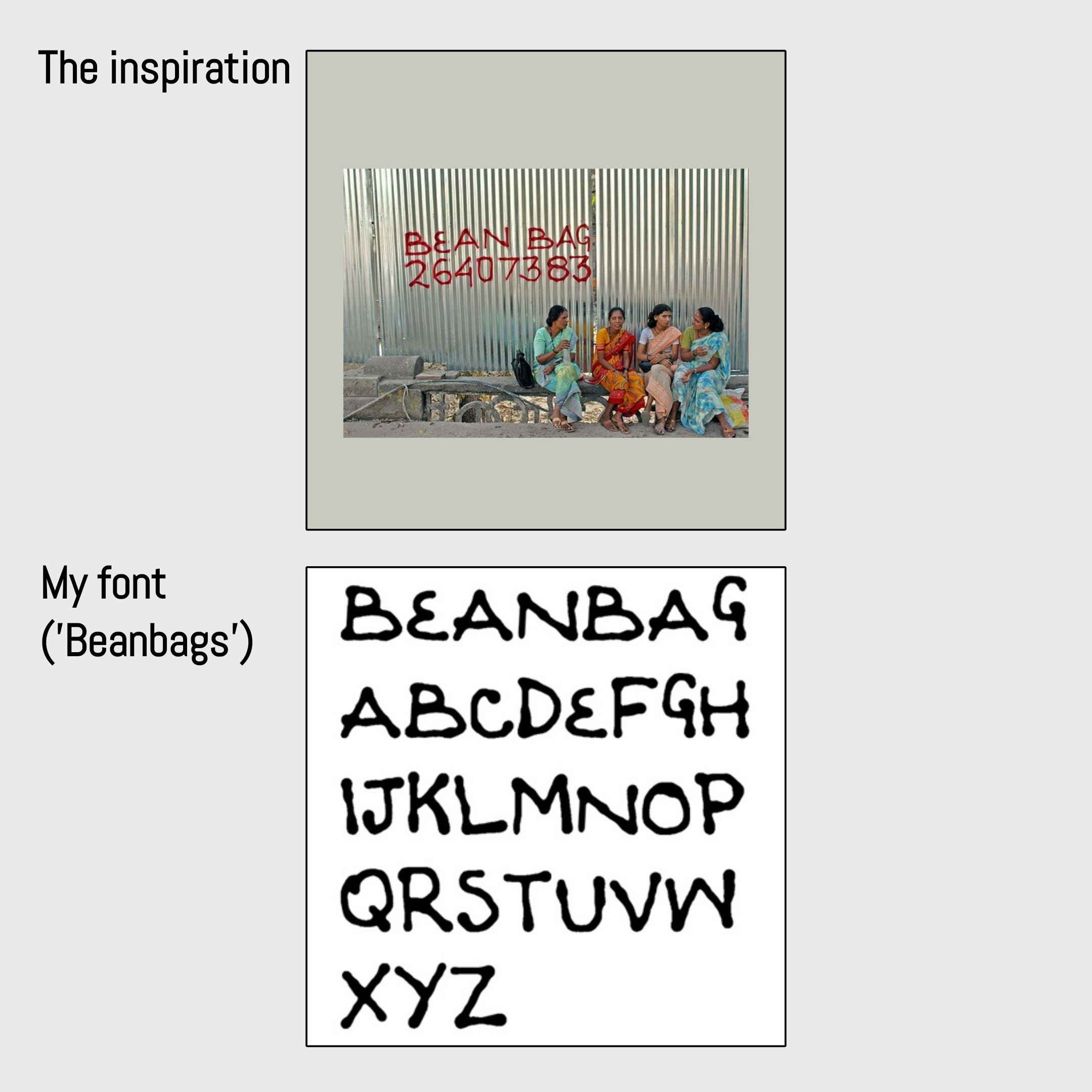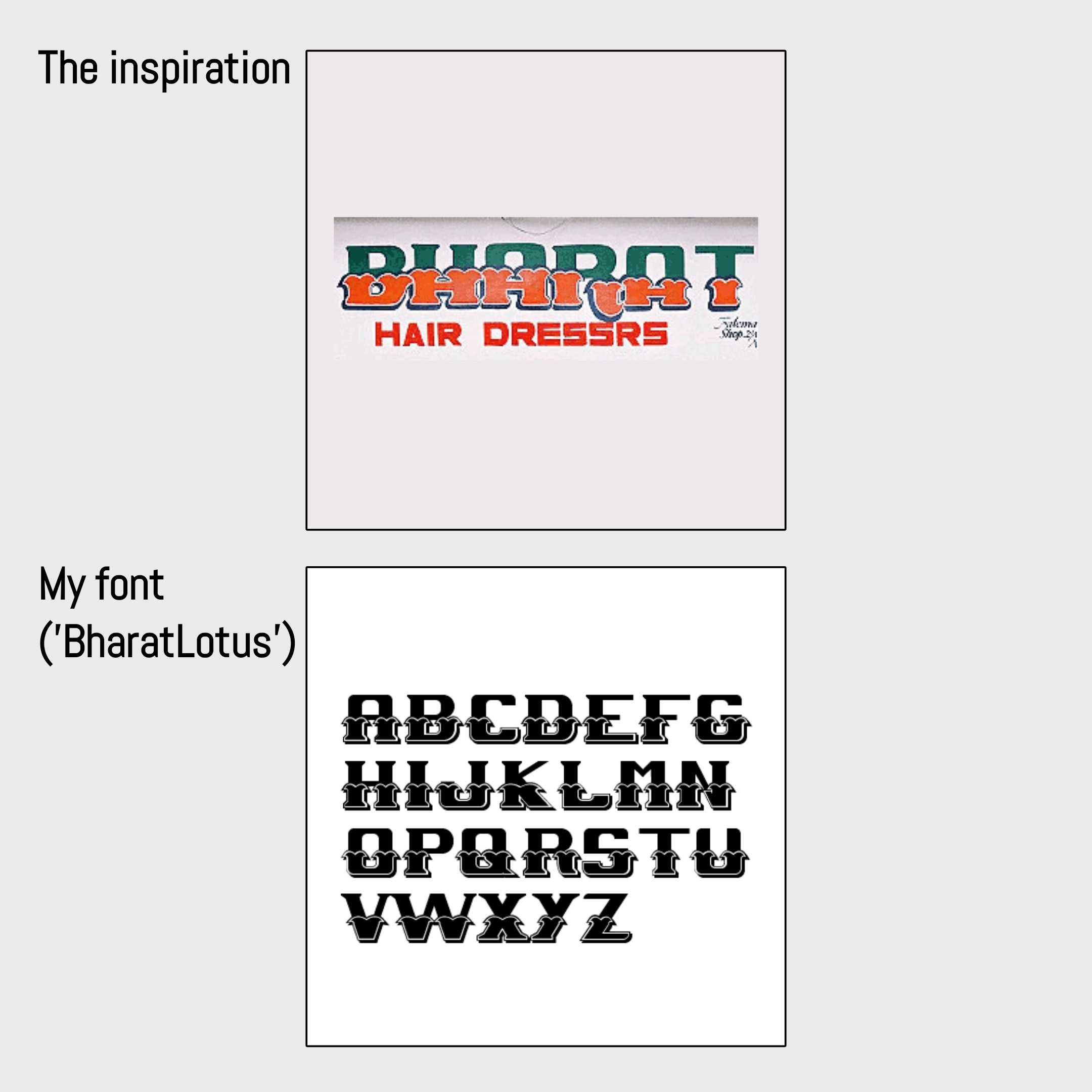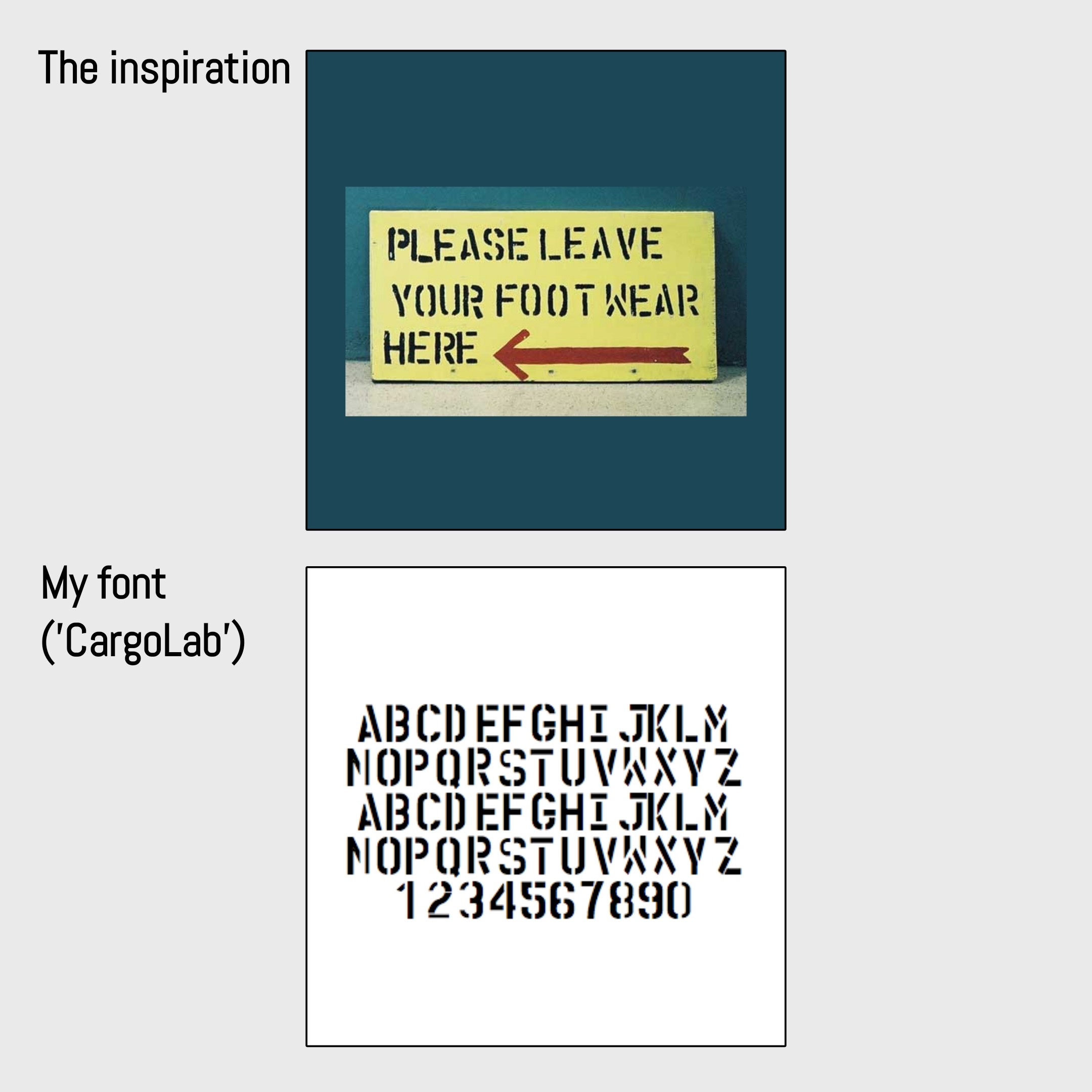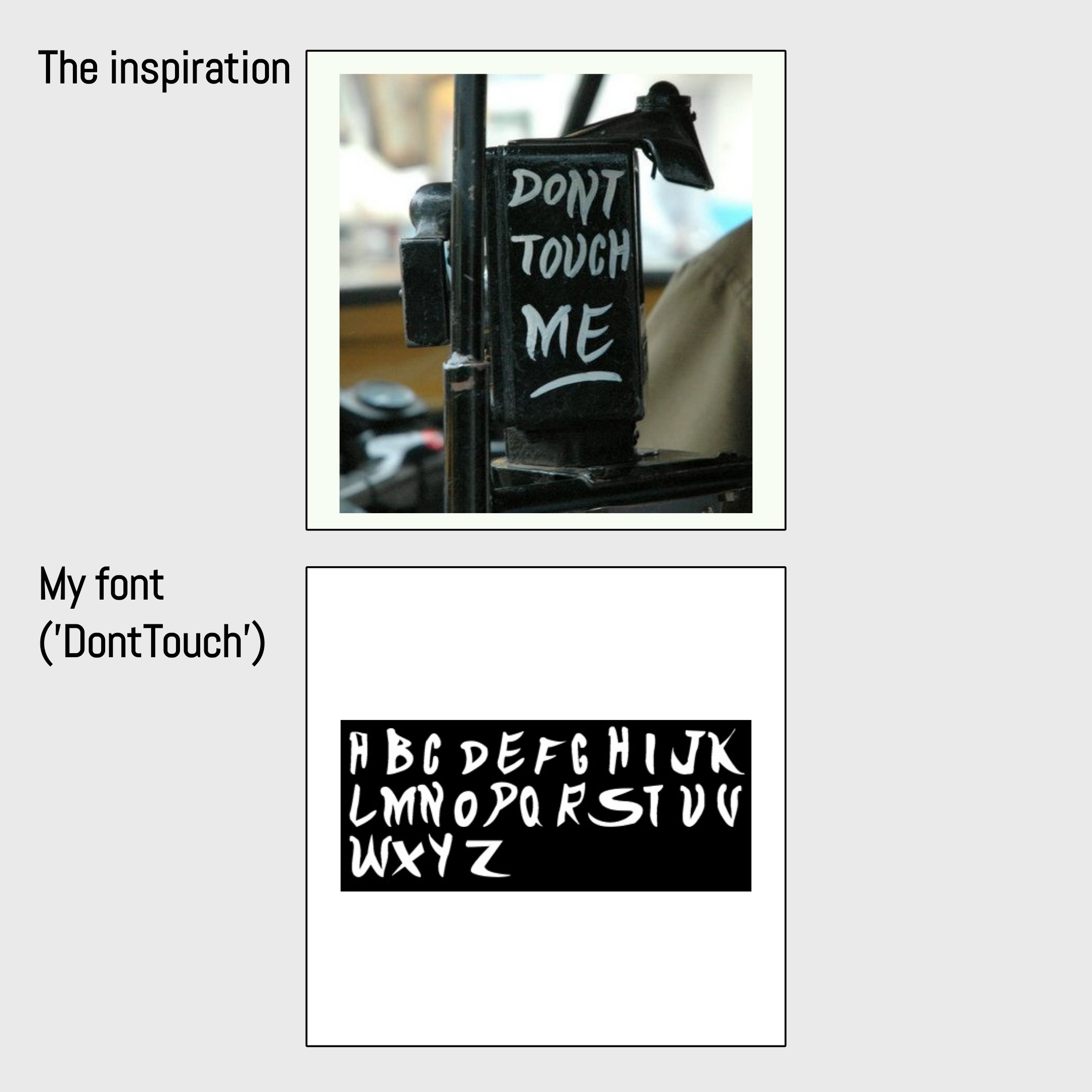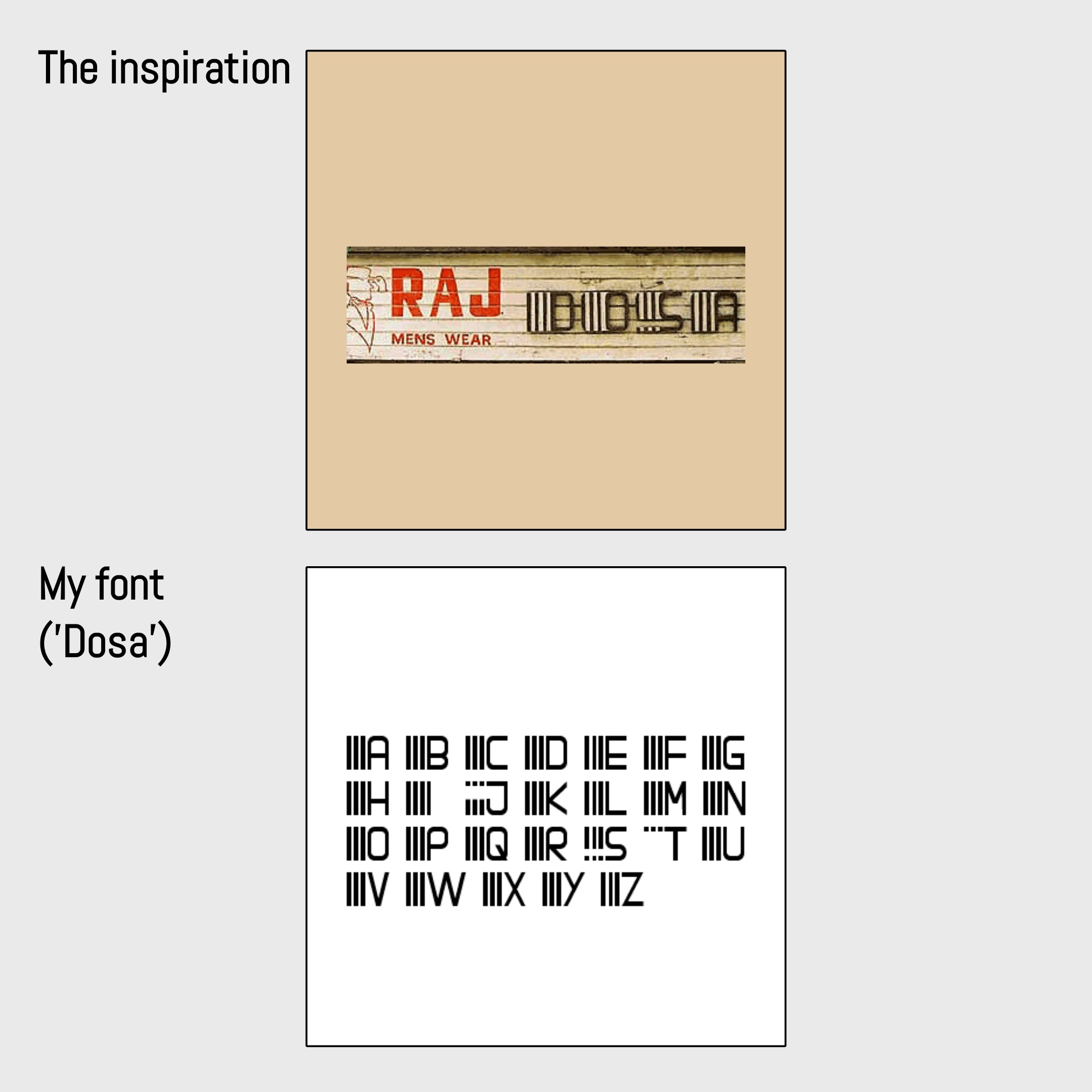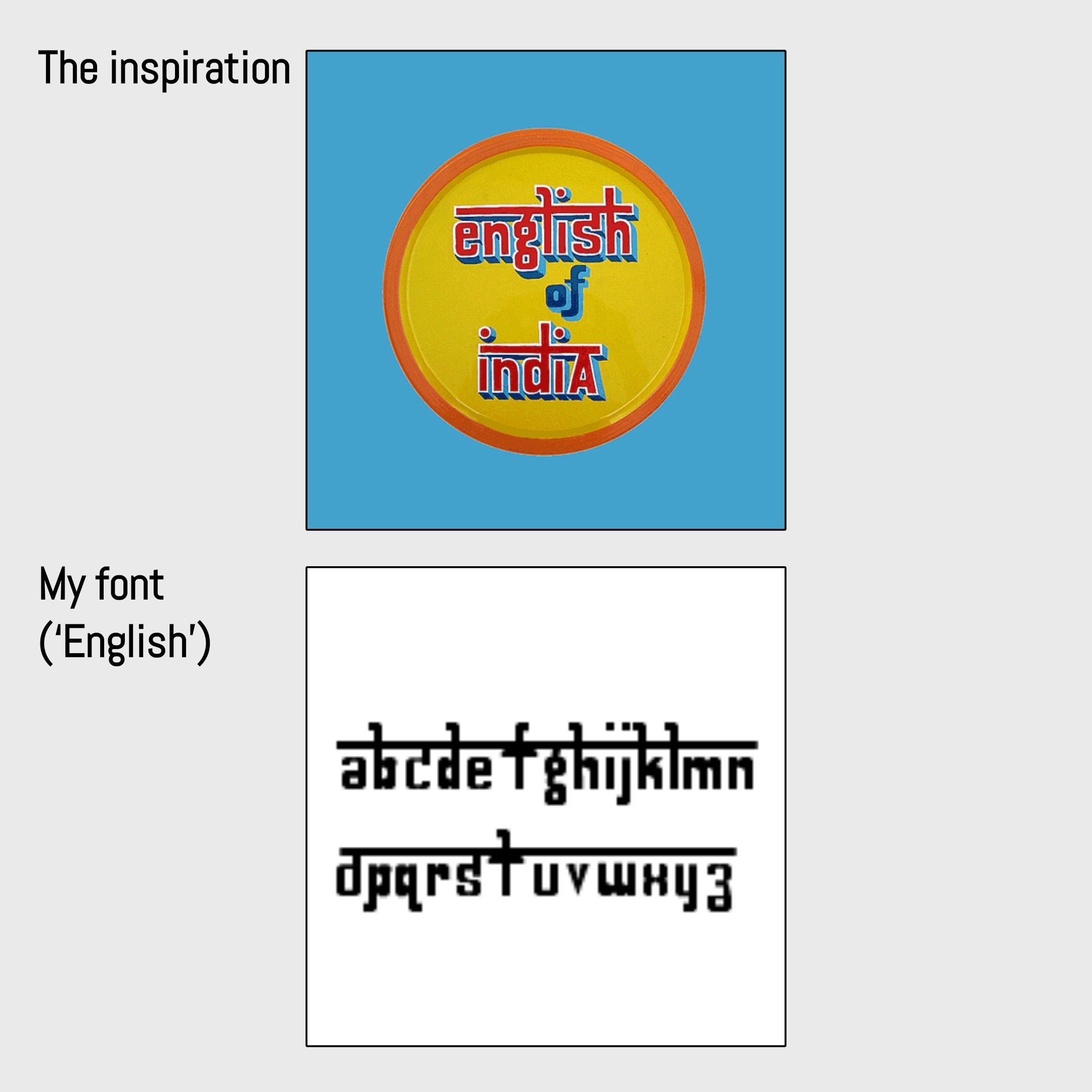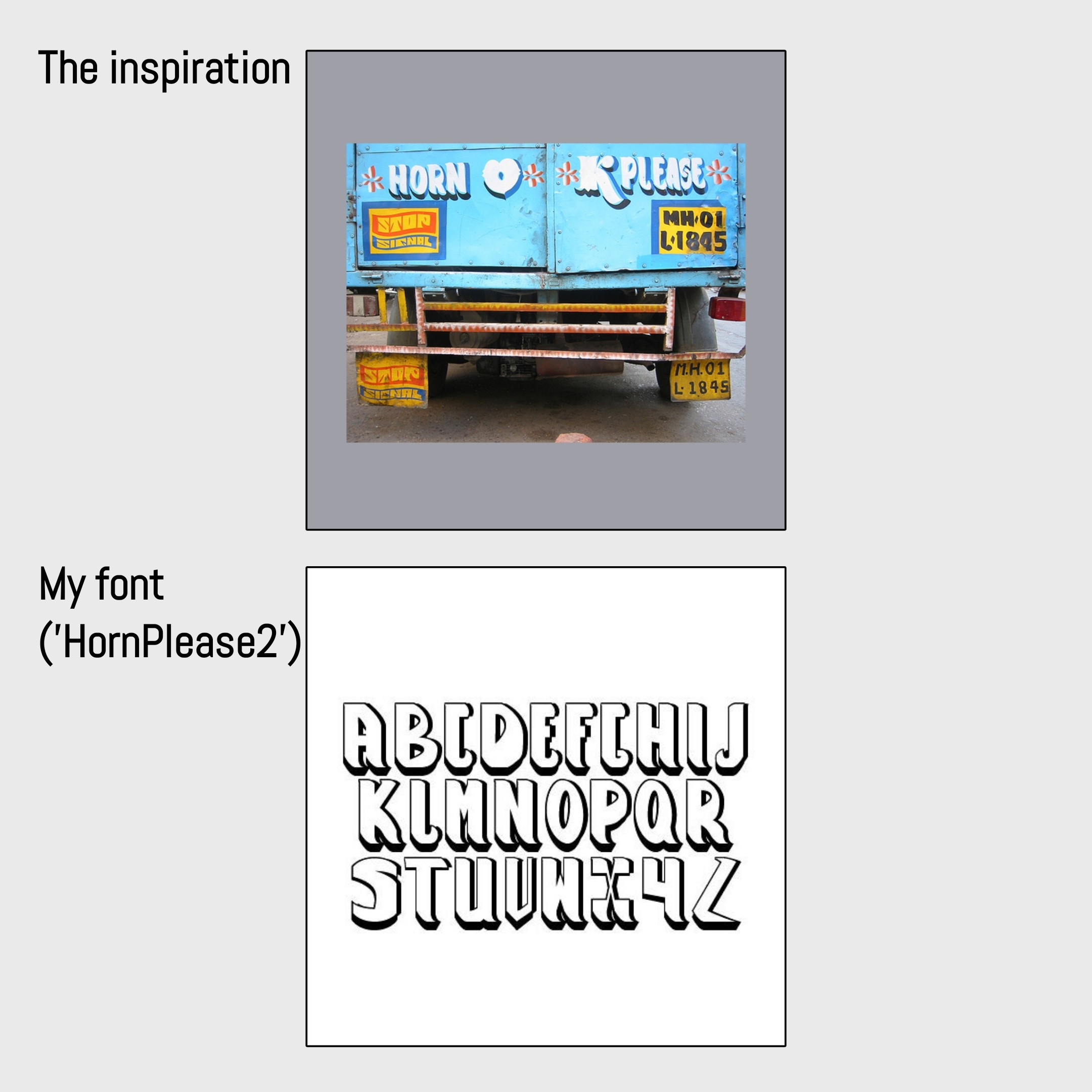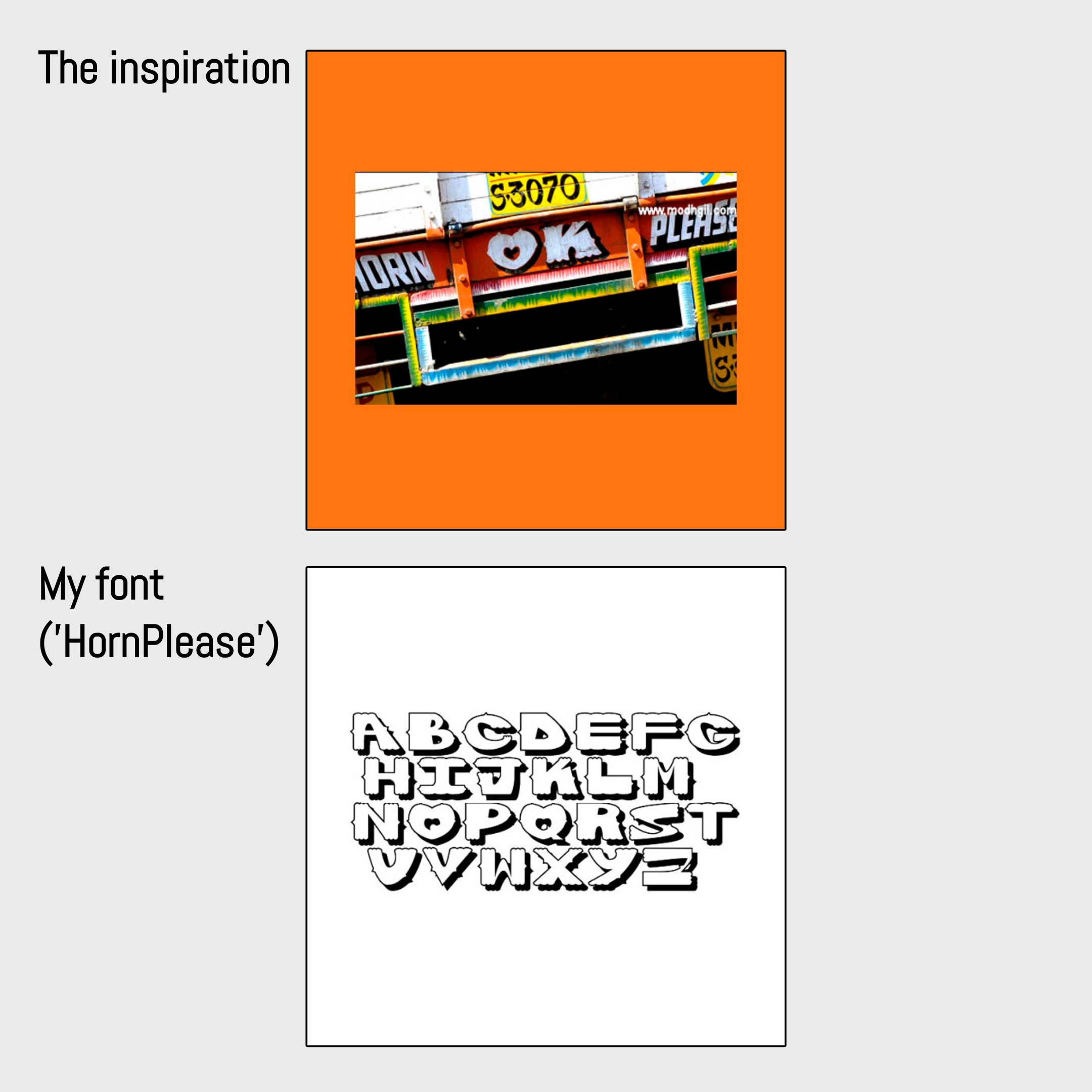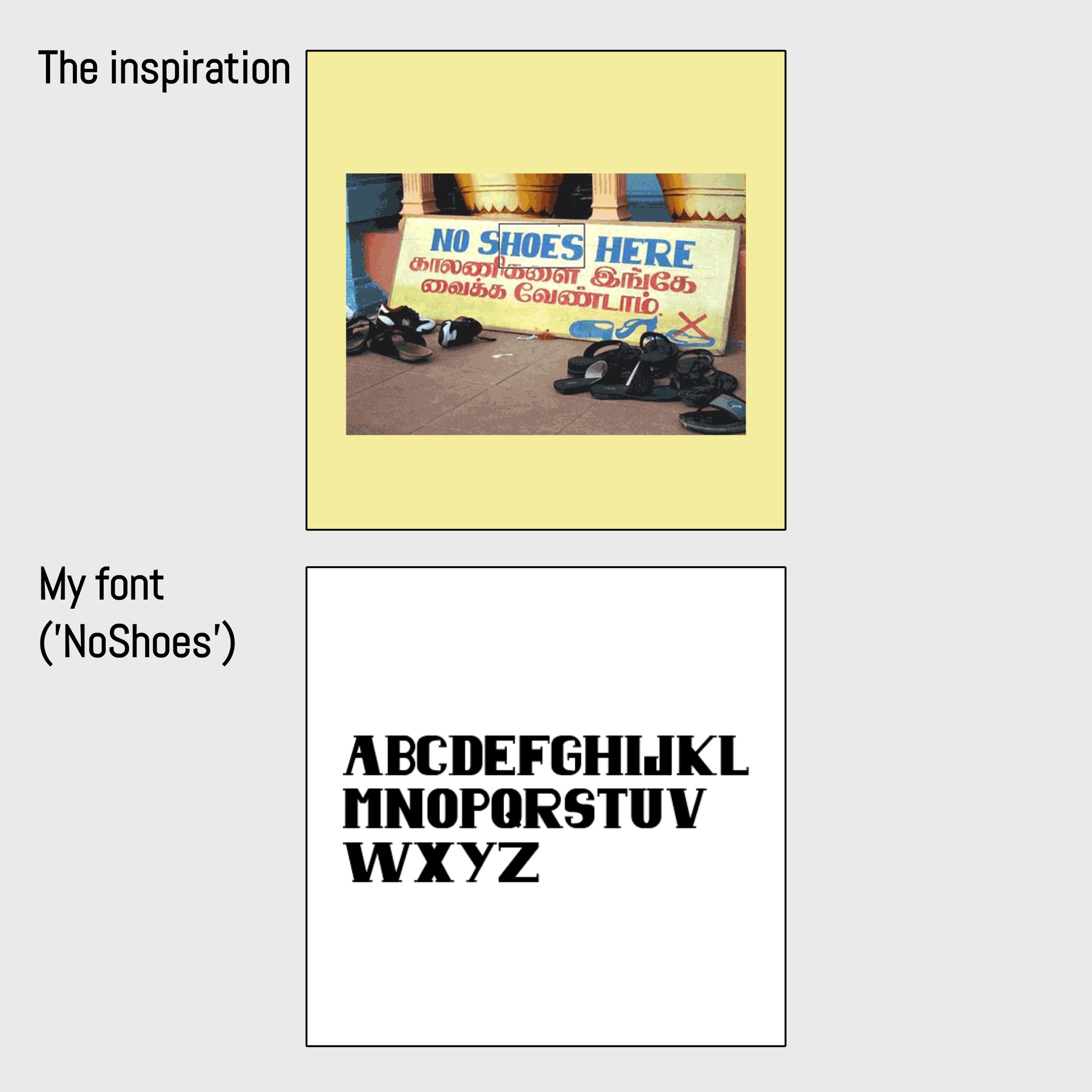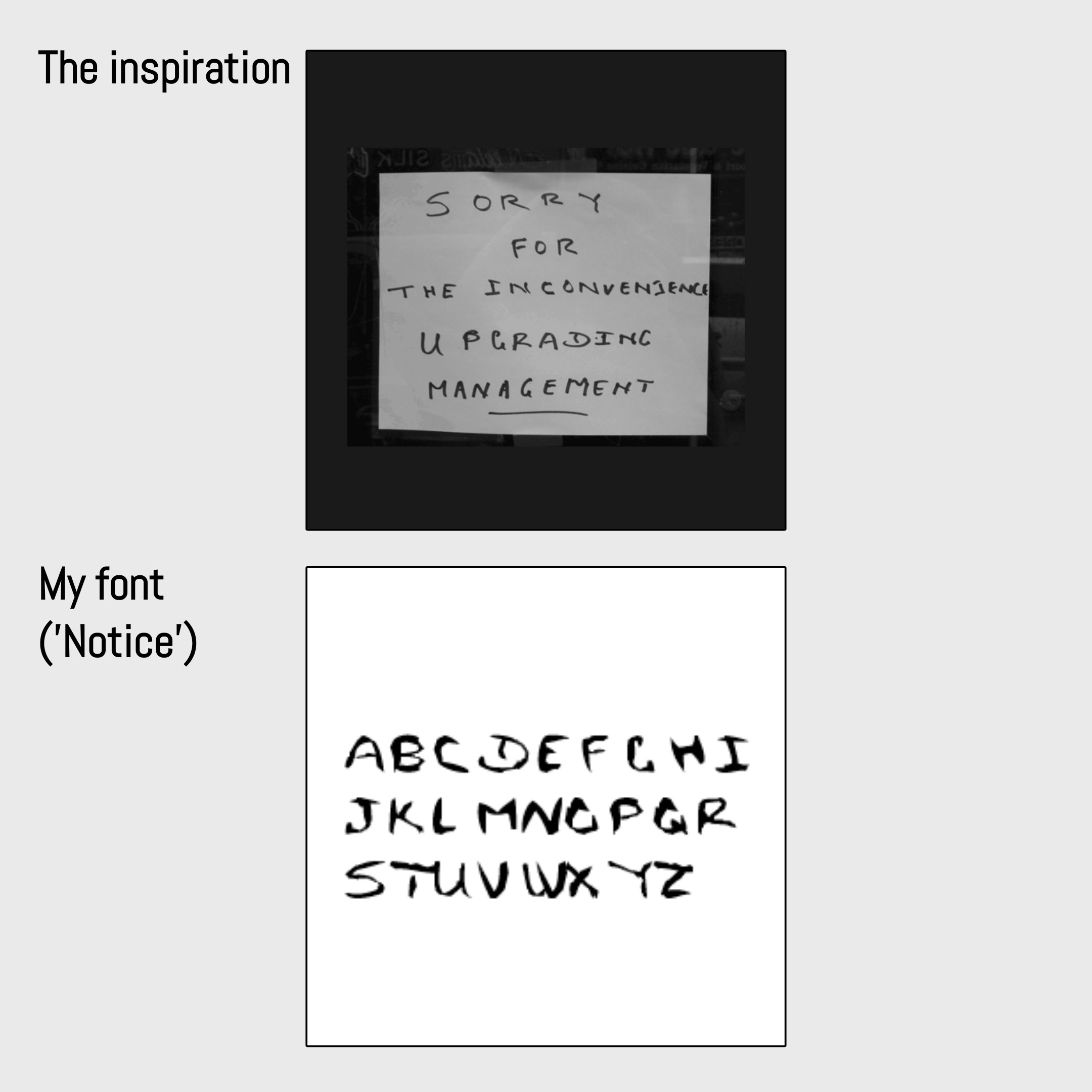
I love (relevantly used) fonts — their geometry, their art, their family rules. At one point I started collecting photographs of India's fast-disappearing hand-painted typography — the "Horn OK Please" behind trucks, the "STD ISD" on phone booths — and turning them into installable typefaces. The challenge: each photo gave me only a few letters. The rest had to be interpolated from the rules hidden in what was there.
The Ray Roman story
A Satyajit Ray desk calendar and film clapperboard — the kind of collectable that holds the memory of his hand-lettering, which inspired the Ray Roman font project
The Clarion office (Bates at the time) had framed along its staircase walls an alphabet set hand-drawn by Satyajit Ray, from when he used to work there. My mentor Ram Ray suggested I turn it into a font — a secret project between us. After I finished it and he approved it, and we had christened it RR (Ray Roman), the news came that someone else had already done it. We were devastated. I decided not to share RR publicly — I keep it under his care only. It is the font that got away.
Type design is where the rules are strictest. A logotype is a handful of letters that have to hold together under any amount of scrutiny, the same problem as a typeface but smaller and less forgiving, which is why the two disciplines keep teaching each other. The same rules sit underneath brand identity design, where the typeface is rarely the loudest decision on a page and almost always one of the most consequential. That thinking carries through logo design and the rest of the design work too.
Bharat Lotus font — inspiration photo of painted shop sign and full alphabet specimen A–Z in heavy decorative letterforms with lotus-petal serifs
Bharat Lotus
Hand-painted signage — "Bharat Hair Dressers", Kolkata
English font — inspiration and full alphabet specimen
English
Painted shop-front lettering
Service font — inspiration and full alphabet specimen
Service
Service board typography
Beanbags font — inspiration and full alphabet specimen
Beanbags
Informal hand-lettering
Thane font — inspiration and full alphabet specimen
Thane
Municipal painted signage
HornPlease font — inspiration photo of truck tailgate "Horn OK Please" lettering and full alphabet specimen in rounded chunky letterforms with inline strokes
HornPlease
"Horn OK Please" truck-back lettering
HornPlease2 font — variant on truck-back lettering, inspiration and full alphabet specimen
HornPlease2
Variant on truck lettering
DontTouch font — inspiration and full alphabet specimen
DontTouch
Prohibition signage
Travels font — inspiration photo of man holding hand-painted "TRAVELS" signboard in red, yellow and white; full alphabet specimen in matching decorative caps
Travels
Travel agency painted boards
Notice font — inspiration and full alphabet specimen
Notice
Notice-board lettering
StopSignal font — inspiration and full alphabet specimen
StopSignal
Traffic warning signs
CargoLab font — inspiration and full alphabet specimen
CargoLab
Freight & cargo stencilling
PCO font — inspiration and full alphabet specimen
PCO
"PCO STD ISD" phone booth lettering
OBricks font — inspiration and full alphabet specimen
OBricks
Construction site painted type
RedReverse font — inspiration and full alphabet specimen
RedReverse
Reverse-contrast painted sign
TrafficPolice font — inspiration and full alphabet specimen
TrafficPolice
Traffic authority lettering
SoundHorn font — inspiration and full alphabet specimen
SoundHorn
"Sound Horn" road marking lettering
STD-ISD font — inspiration and full alphabet specimen
STD-ISD
Telephone booth painted signage